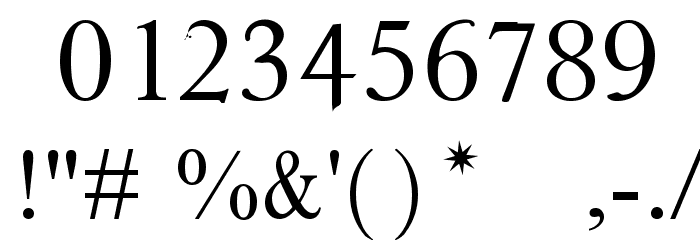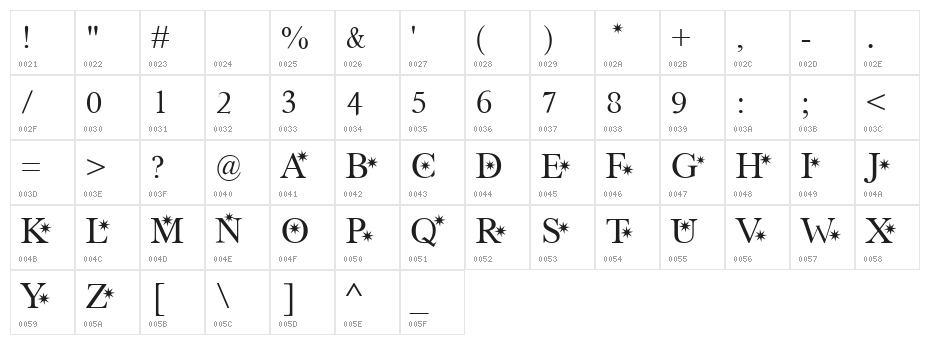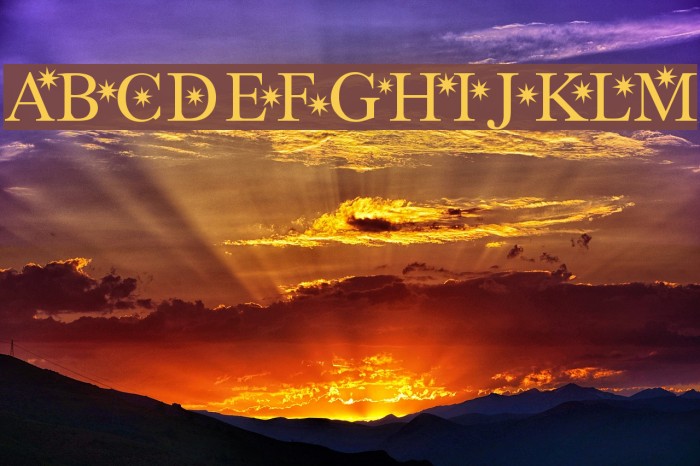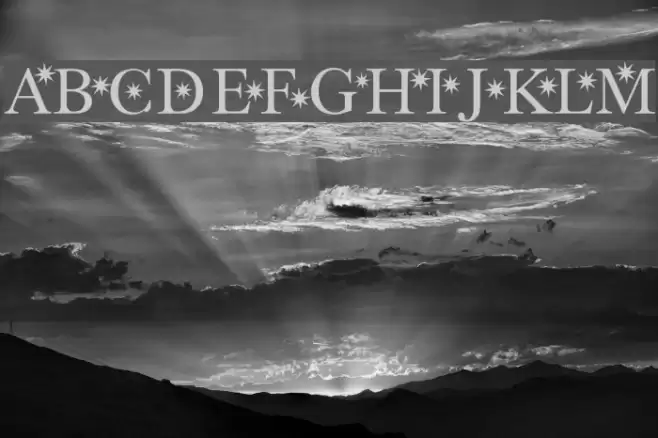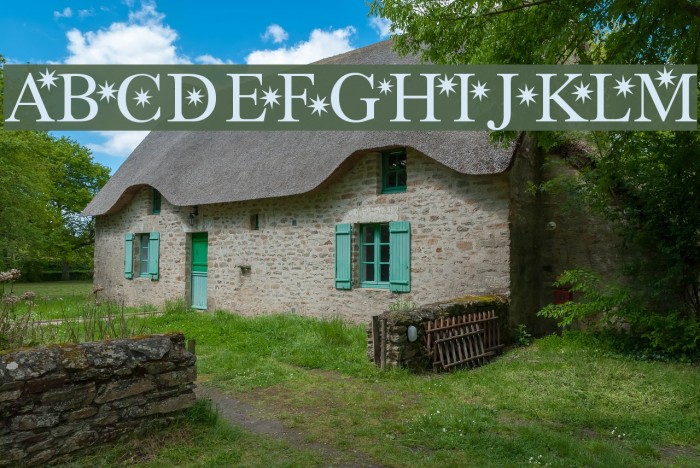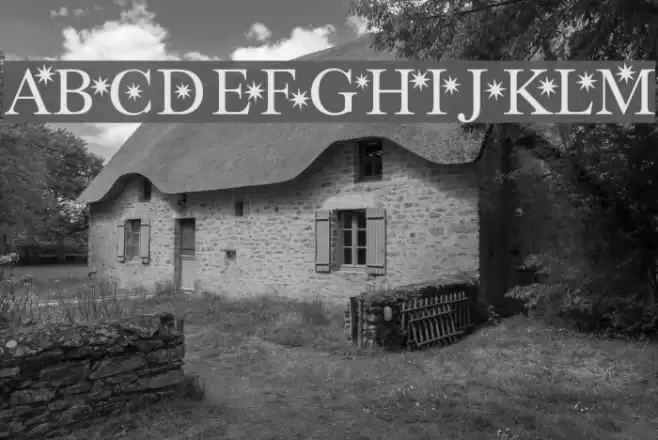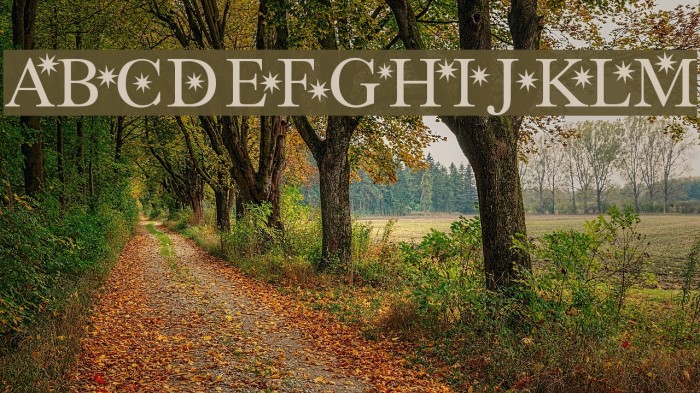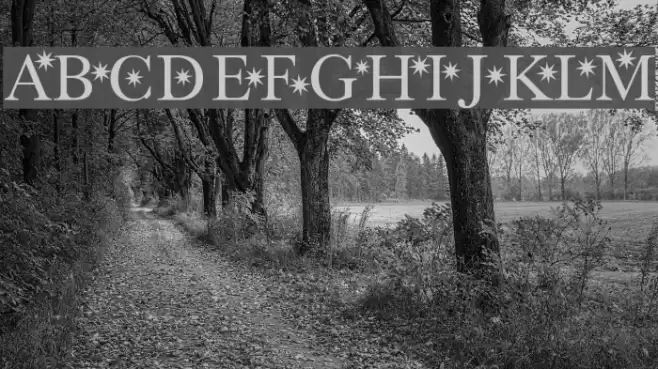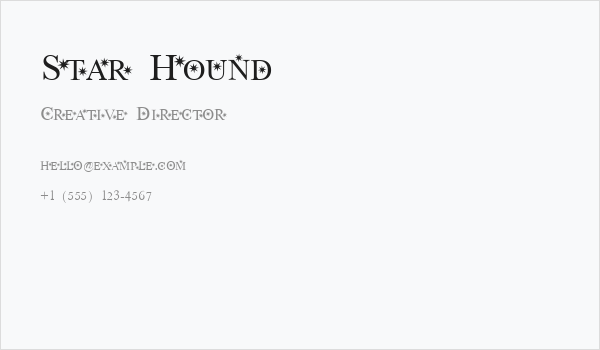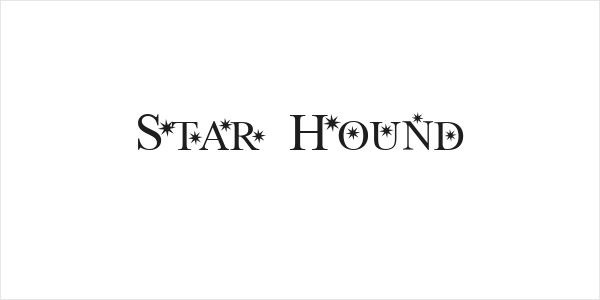
Star Hound Font
Star Hound Description
This font features a classic serif style with a unique twist. Each character is adorned with a star-like embellishment, giving it a decorative and whimsical appearance. The serifs are pronounced, adding a touch of elegance and tradition. The uppercase and lowercase letters maintain a consistent style, with the star motif adding a playful element. The numerals are clear and easy to read, while the special characters continue the decorative theme. This font combines traditional serif elements with a creative flair, making it stand out for its artistic design.